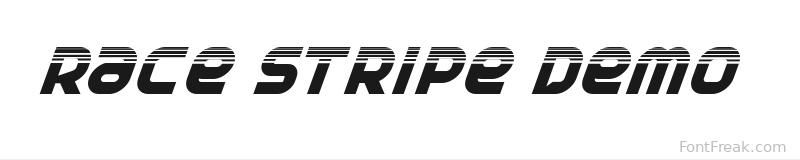
Race Stripe Demo
About Race Stripe Demo
The Race Stripe Demo font by Noah Type is a striking display typeface that captures the essence of speed and dynamism. Characterized by its bold, geometric forms, this font exhibits a unique interplay of thick and thin strokes, creating an eye-catching contrast that draws the viewer's attention. The letters feature a distinctive striped design, reminiscent of racing stripes, which adds an element of movement and excitement. With its well-defined spacing, Race Stripe Demo ensures clarity even in larger text sizes, making it suitable for various applications.
This font shines in a range of use cases. It is particularly well-suited for sports event posters, where its energetic aesthetic can evoke a sense of urgency and action. Additionally, it works wonderfully for automotive branding, giving a modern and sleek look to logos and promotional materials. Graphic designers can utilize it for creating impactful social media graphics, while small business owners might find it ideal for eye-catching signage or advertisements. Furthermore, the Race Stripe Demo font can enhance the visual appeal of merchandise designs, making it a versatile choice for anyone looking to make a statement.
Targeted primarily at graphic designers, small business owners, and content creators, this font offers a fresh and innovative option for anyone in need of a standout typeface. Its free availability makes it accessible to a broad audience, allowing creative minds to experiment without limitation.
What sets the Race Stripe Demo font apart is its ability to blend a contemporary aesthetic with a playful spirit, making it perfect for projects that require a touch of flair. For those looking to infuse energy into their designs, the Race Stripe Demo font free download is a must-have addition to any typographer's toolkit.